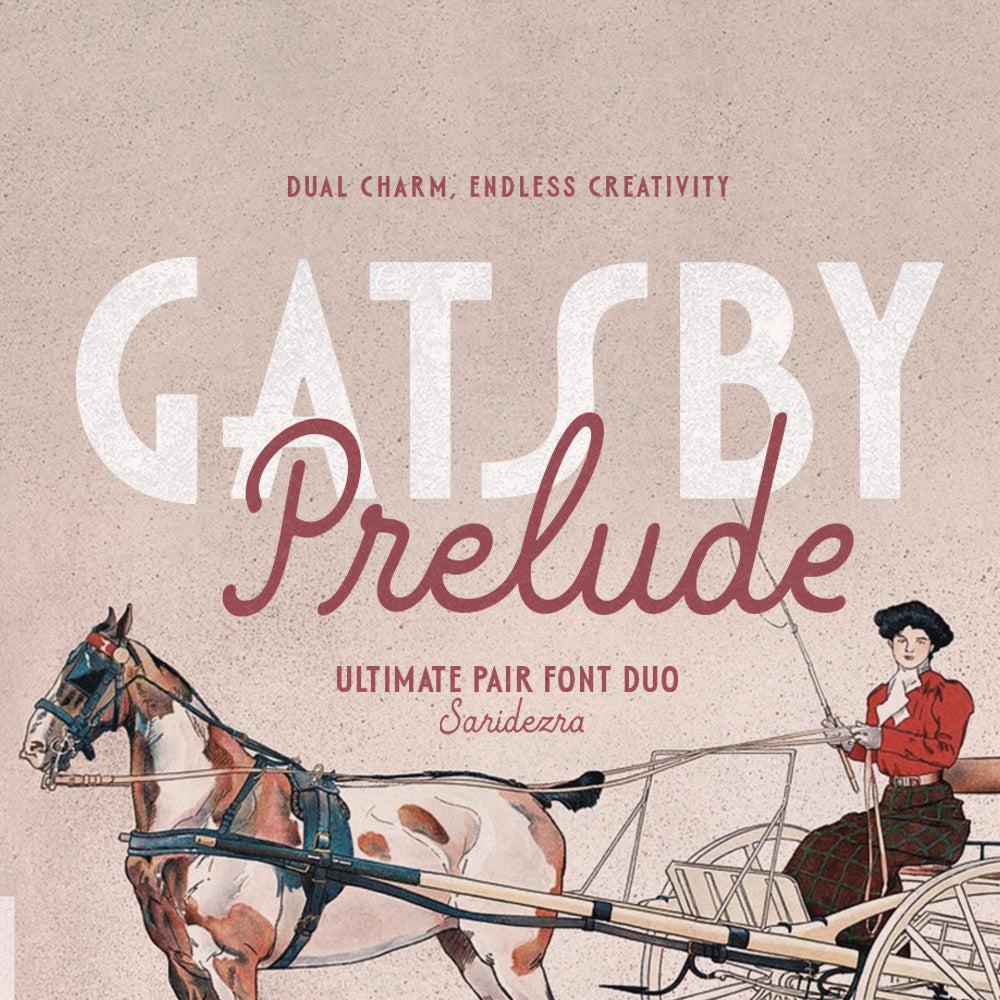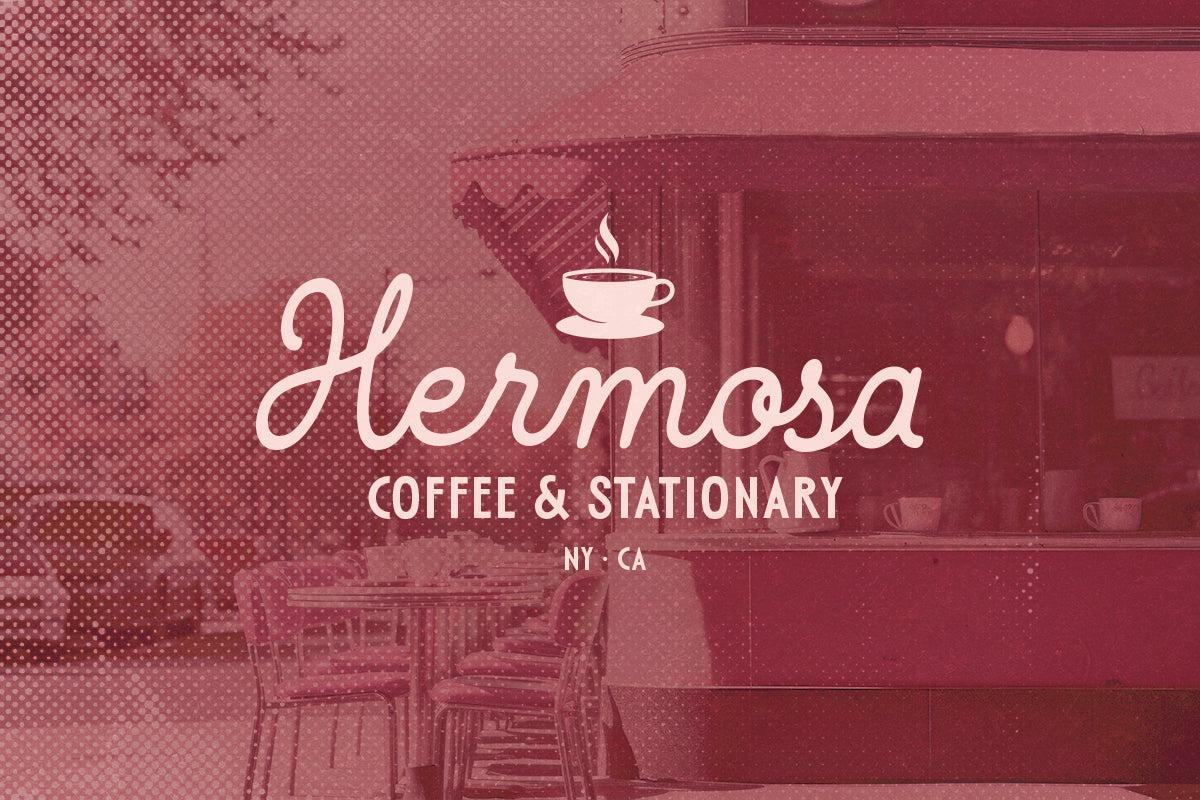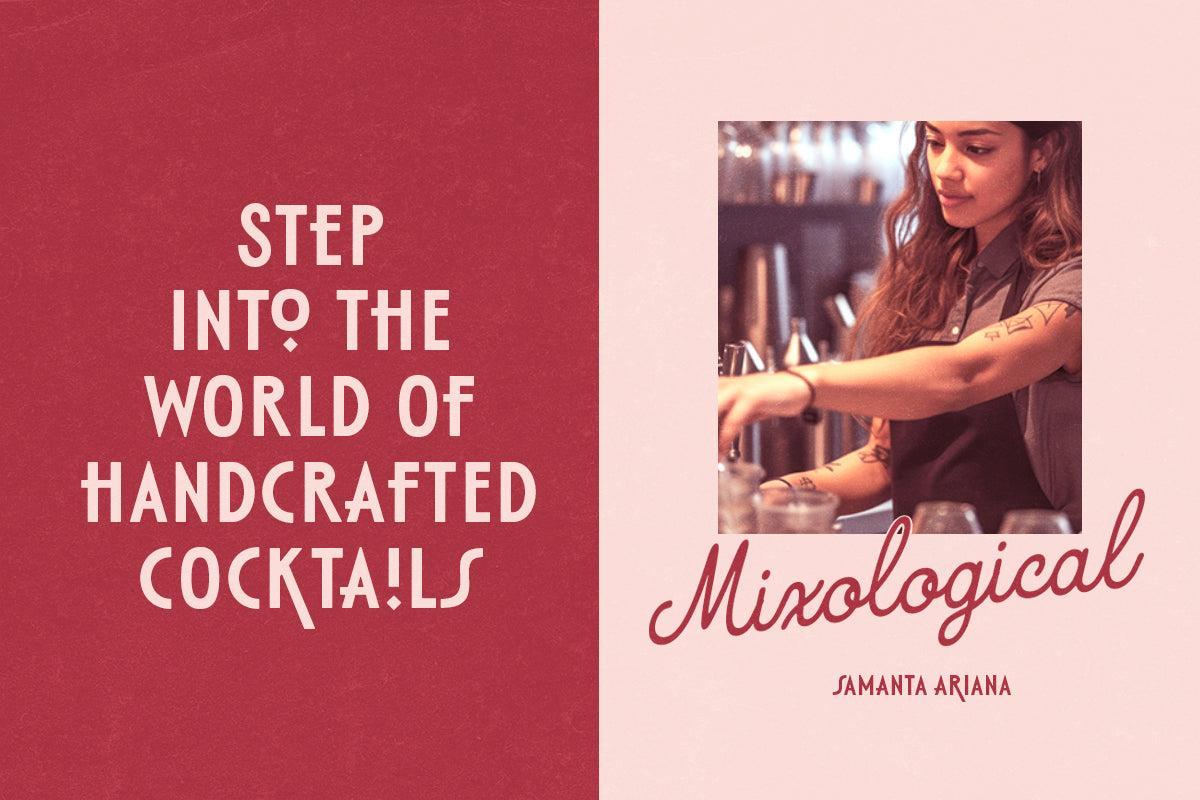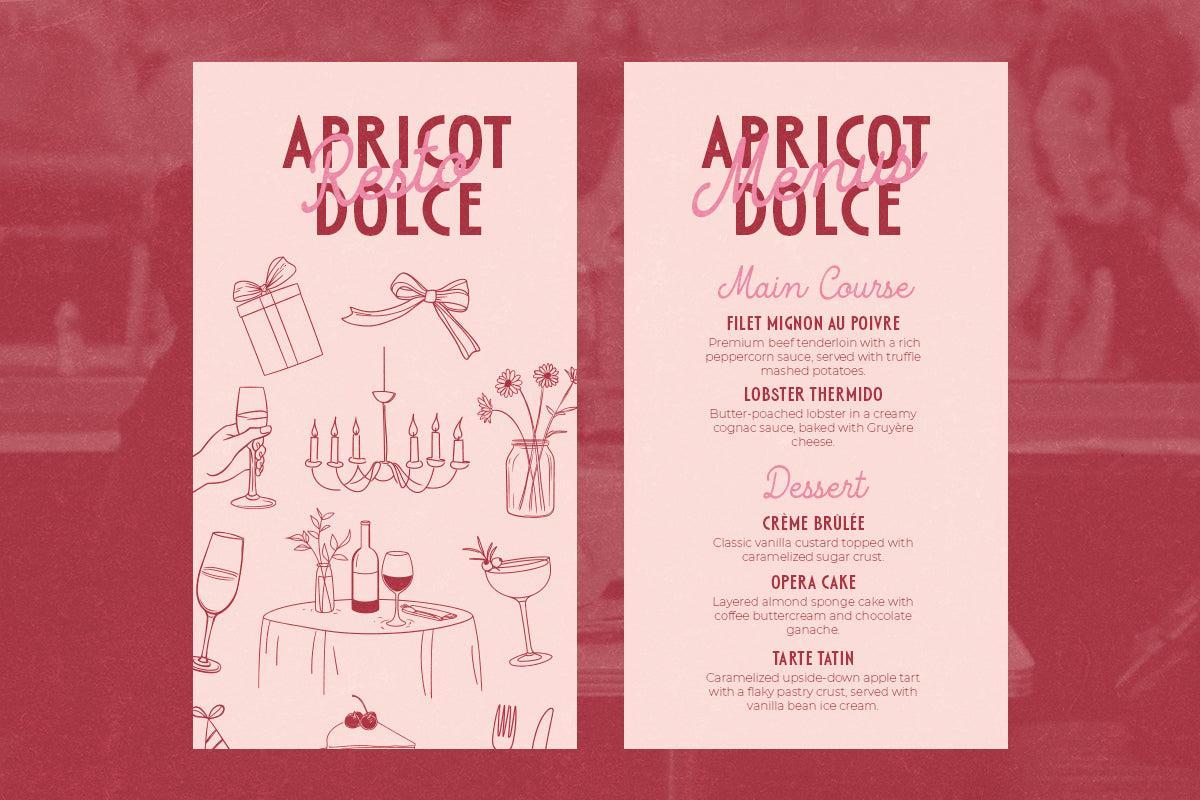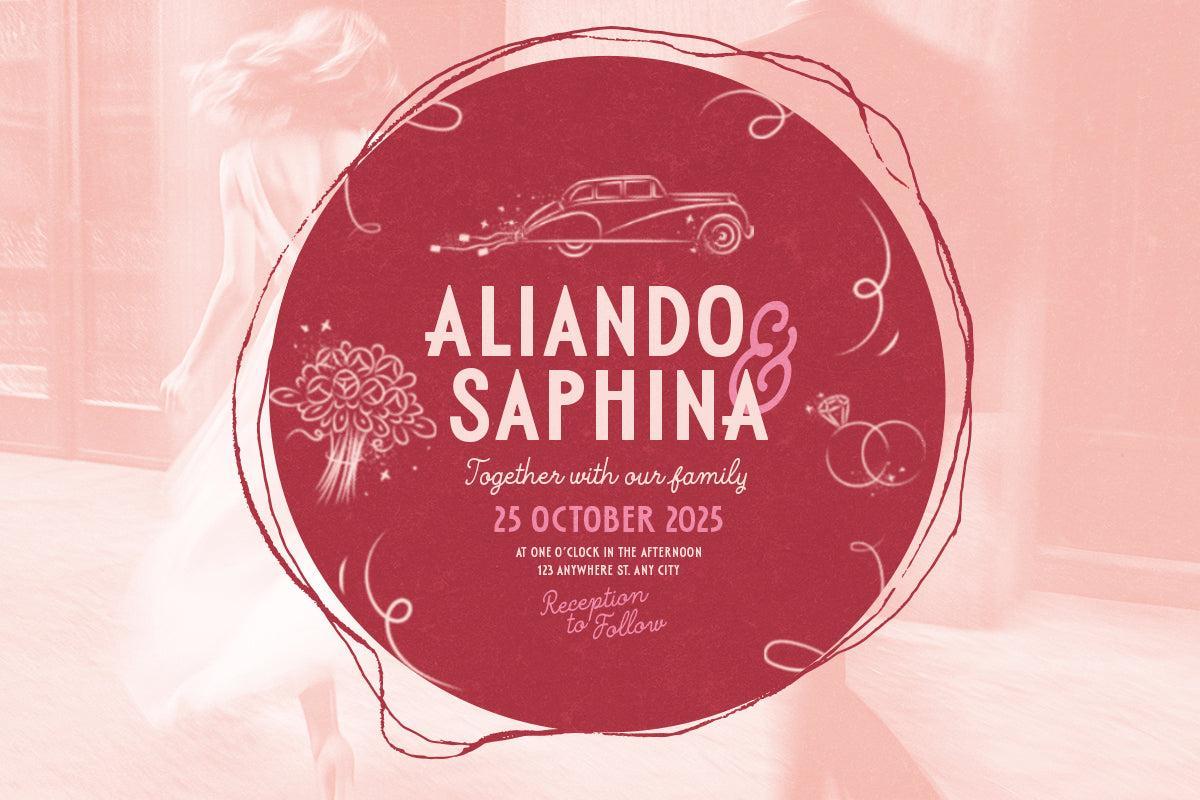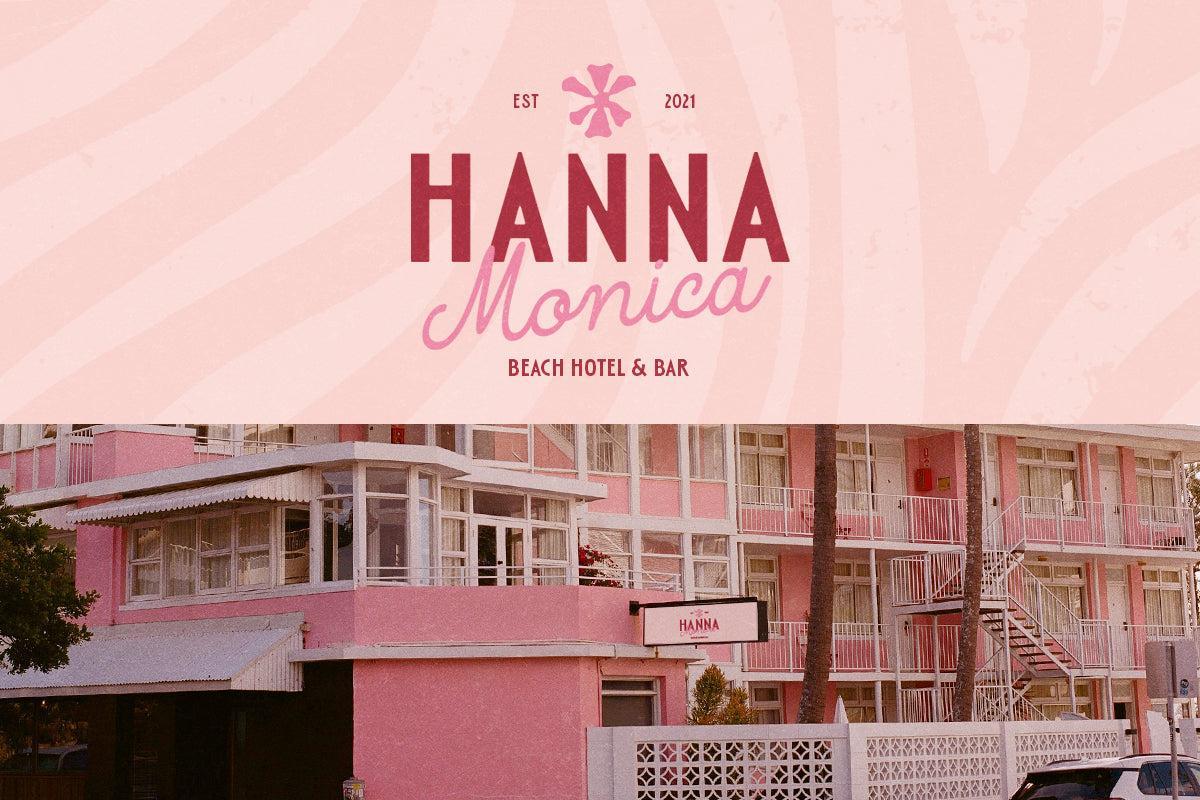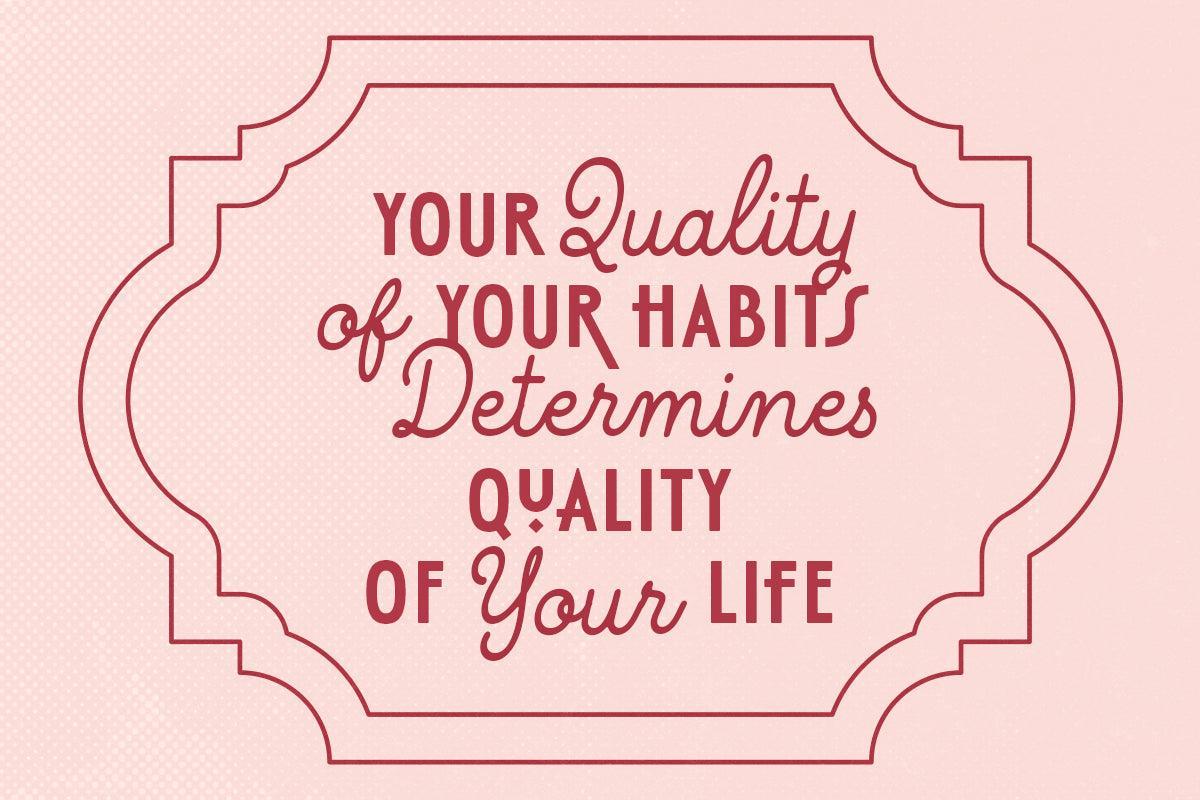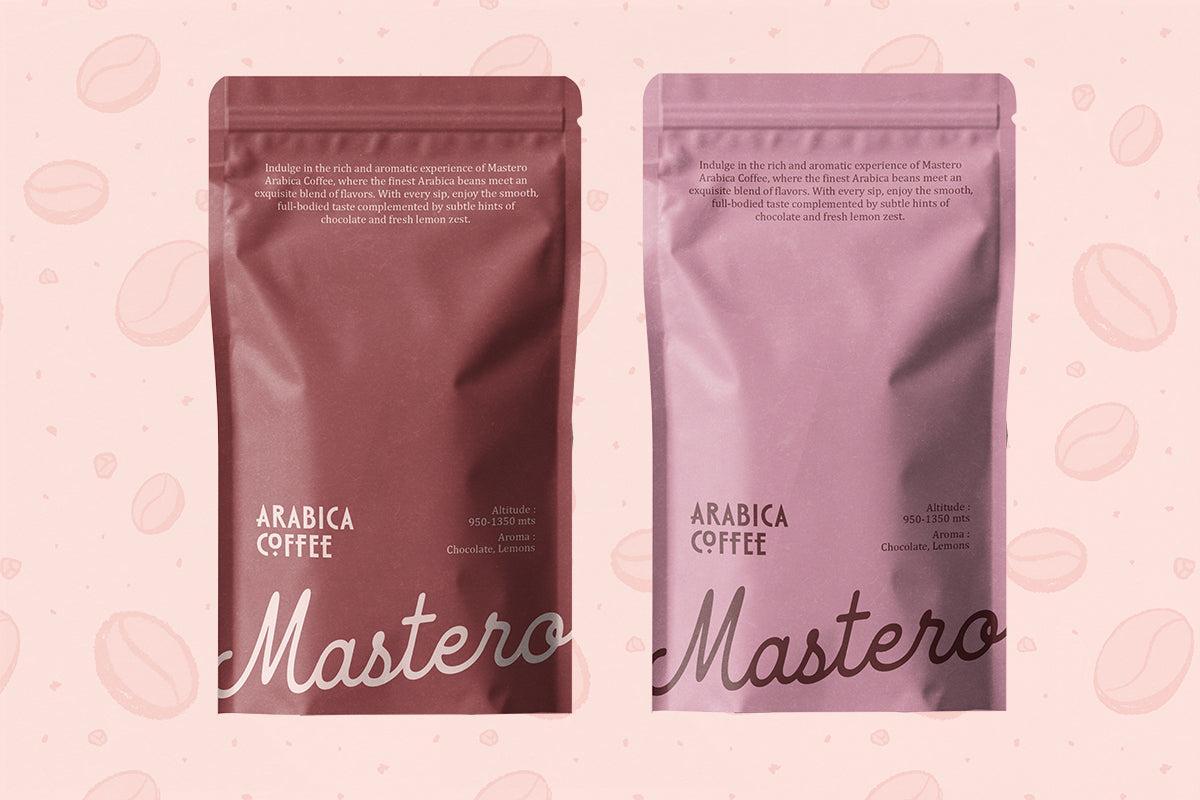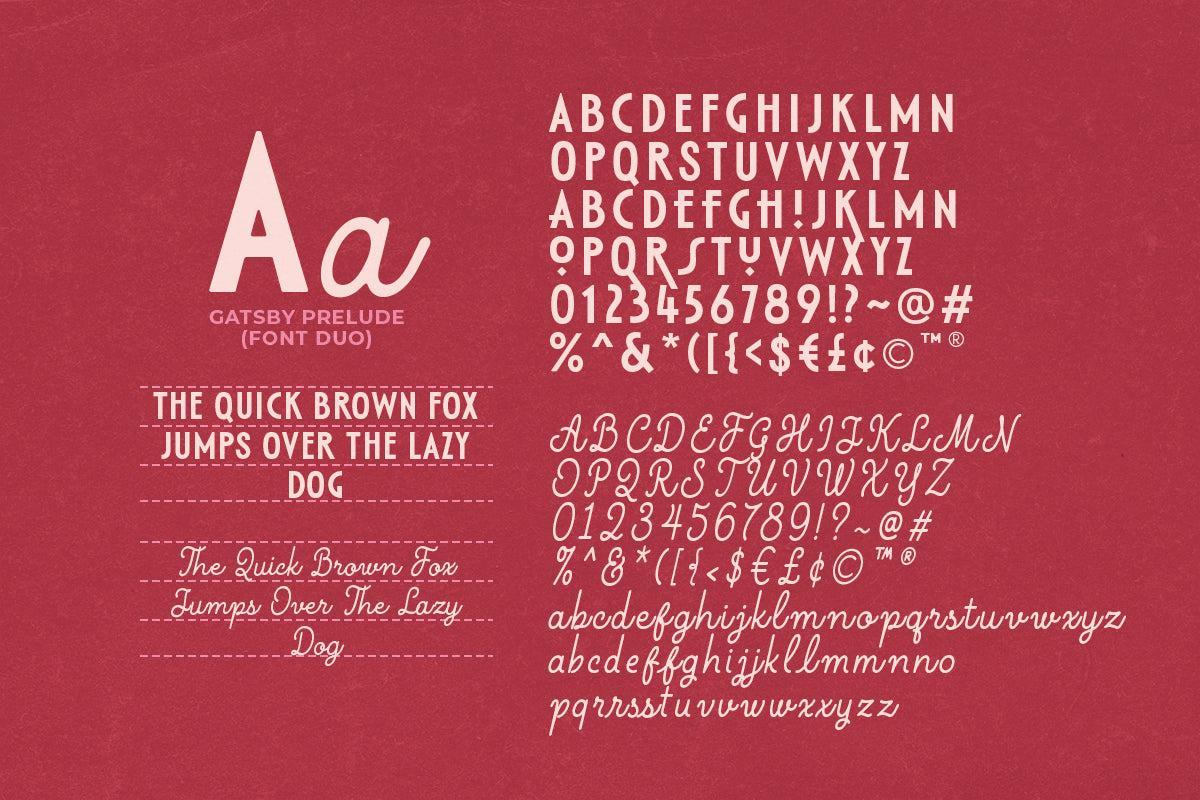
Gatsby Prelude - Art Deco Font Duo
Gatsby Prelude is an art deco font duo featuring a tall sans serif and a monoline script, designed for versatility in various design projects. It includes unique lowercase options, alternates for the script, and supports multiple languages.